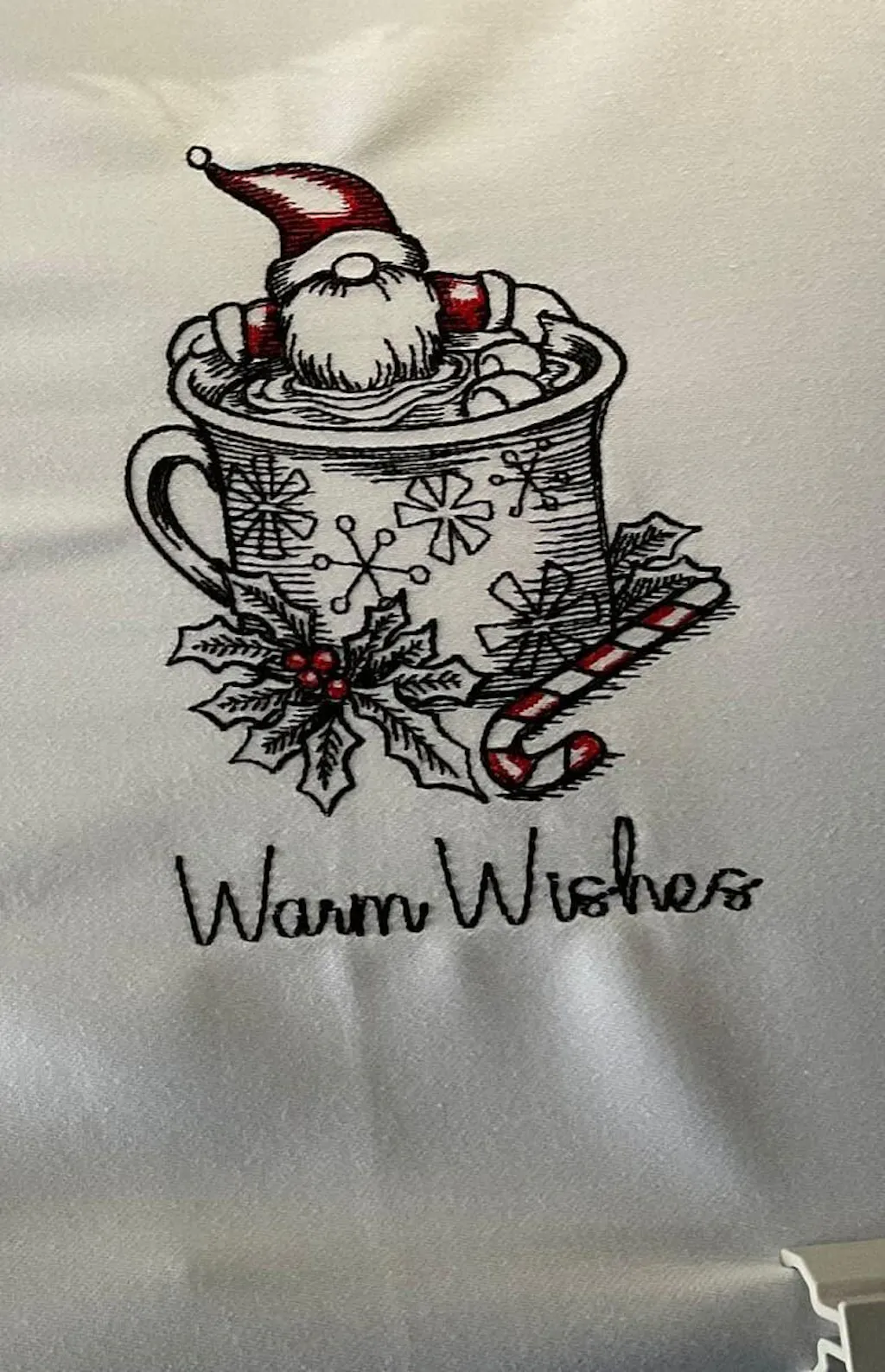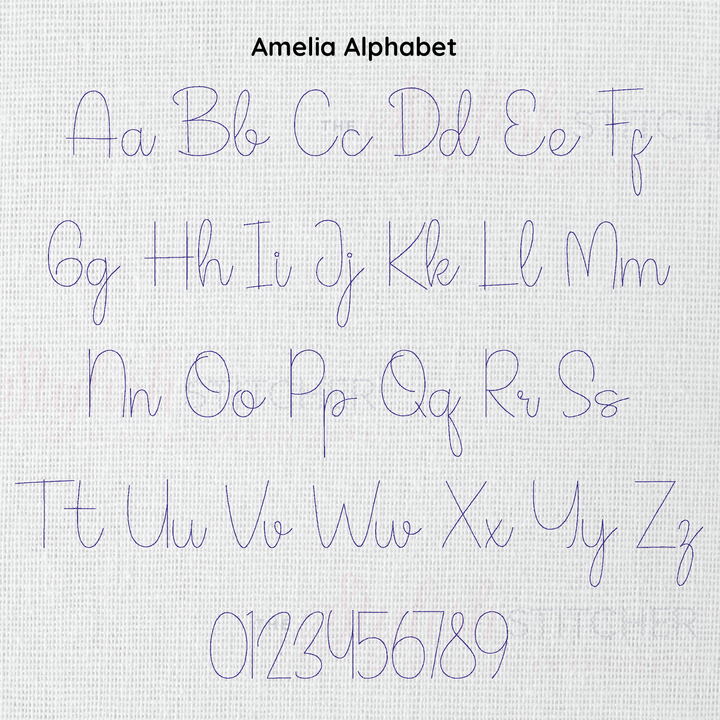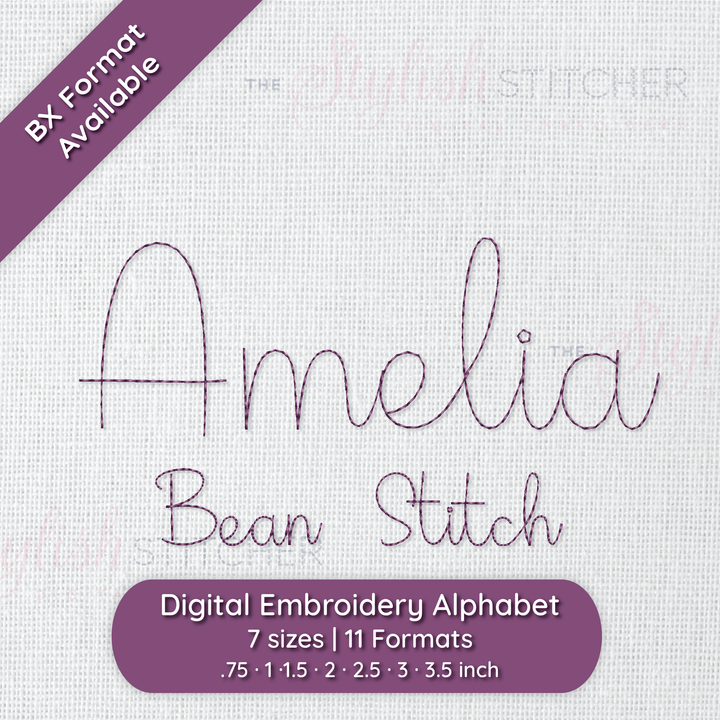
Photograph of stitched out Amelia Bean embroidery font
Photograph of stitched out Amelia Bean embroidery font alphabet
Video showcasing stitched out Amelia Bean font
Amelia Bean Stitch Embroidery Font
Amelia brings a sweet, handwritten charm to your projects with its graceful bean stitch. Perfect for adding a personal touch, Amelia’s quick-stitching flow keeps your work looking effortless and polished. Embrace Amelia and watch your designs come to life with warmth and style.
Stitch Type: Bean Stitch